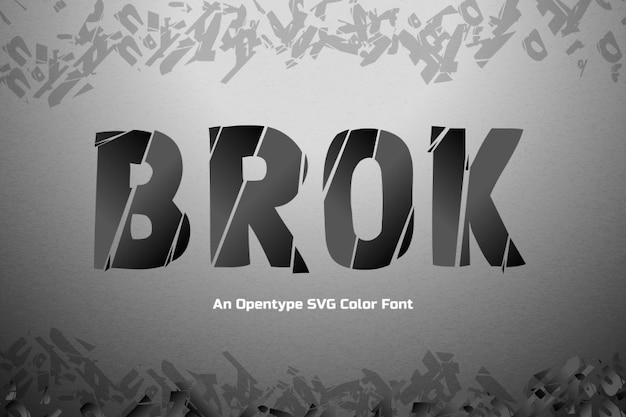
Brok
Brok Font
The "Brok" font echoes an industrial essence, resembling cut and broken metal pieces. Its jagged edges and fragmented letterforms exude a raw, robust aura reminiscent of a factory's gritty machinery. Each character embodies the rugged, edgy feel of a metalwork, evoking a sense of industrial strength and resilience.